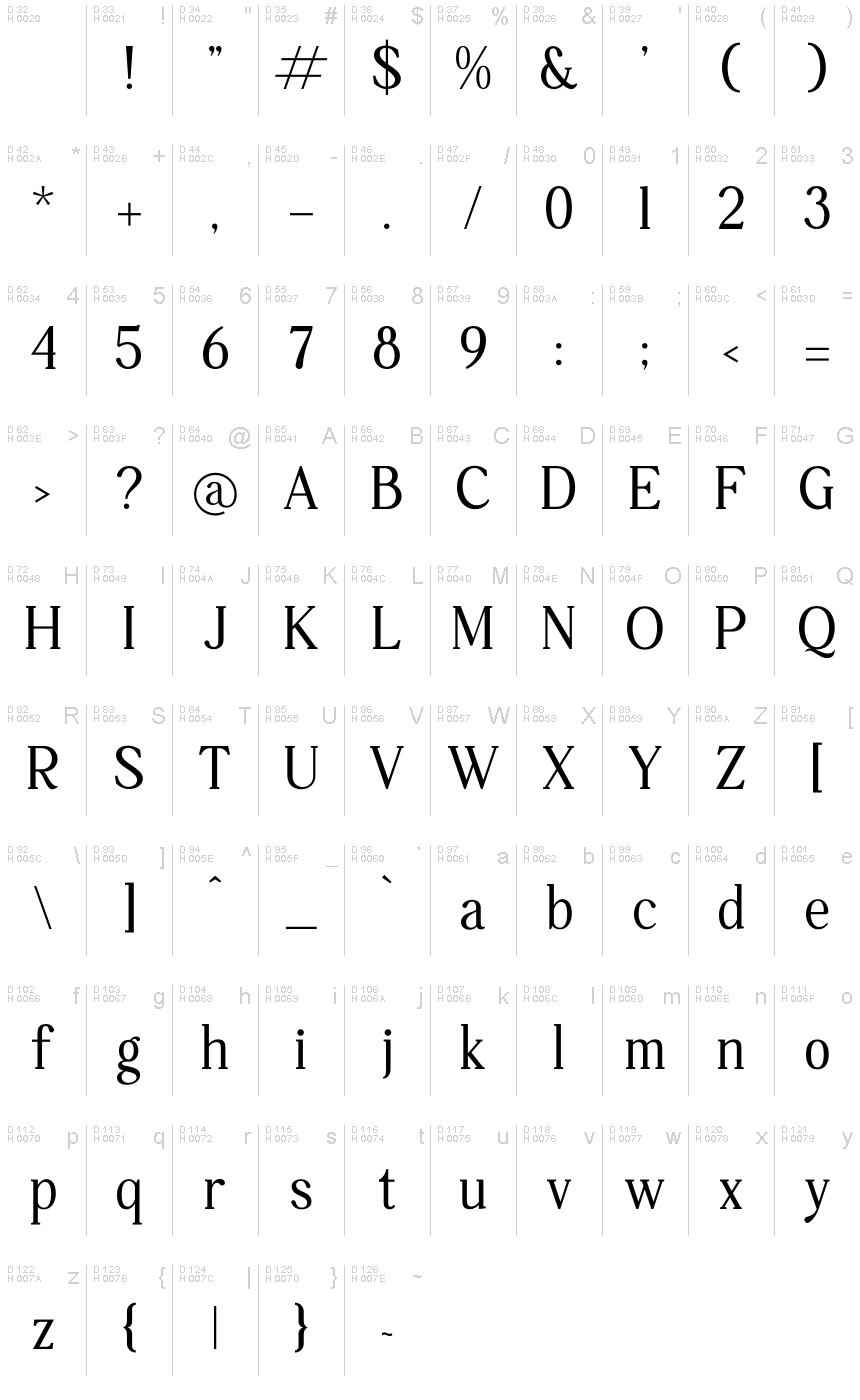
Qamilion
Qamilion, a serif typeface meticulously crafted by Storytype Studio, presents a semi-light weight coupled with a semi-condensed width that exudes elegance and modernity. The font's serifs are designed to provide a classic touch while its sleek lines offer a contemporary feel, creating a harmonious blend of tradition and innovation.
Its aesthetic appeal lies in the delicate balance of its design – neither too bold nor too slender, making it incredibly versatile for an array of creative projects. From editorial layouts to branding and beyond, Qamilion's distinct character ensures readability without sacrificing style.
The subtle sophistication of Qamilion makes it an impeccable choice for those seeking to impart their work with both clarity and stylistic flair. Whether gracing the pages of a novel or the interface of a mobile app, this font is positioned to elevate textual content with its unique charm.